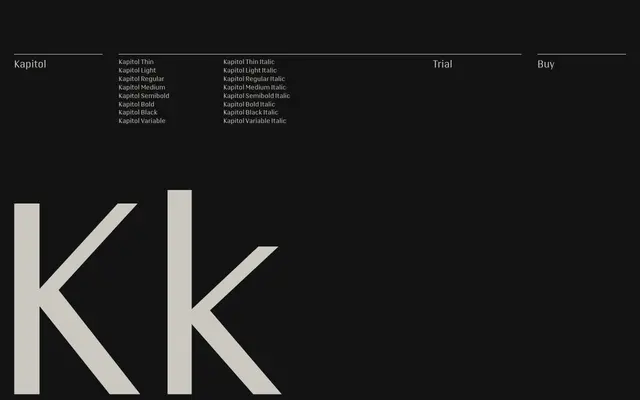
A geometric sans-serif from The Letters, offered in seven weights with matching italics and variable font support across an extended Latin character set.
Seven weights from Thin to Black, each with a matching italic, give Kapitol a broad range suited to editorial, branding and typographic systems. Variable font versions accompany the static styles. The specimen draws heavily on architectural references, from the Pantheon to the Sydney Opera House, positioning the typeface alongside modernist and brutalist building traditions.
Kapitol presents clean, upright letterforms with geometric construction and a wide weight range from Thin to Black, consistent with contemporary geometric sans-serif design.